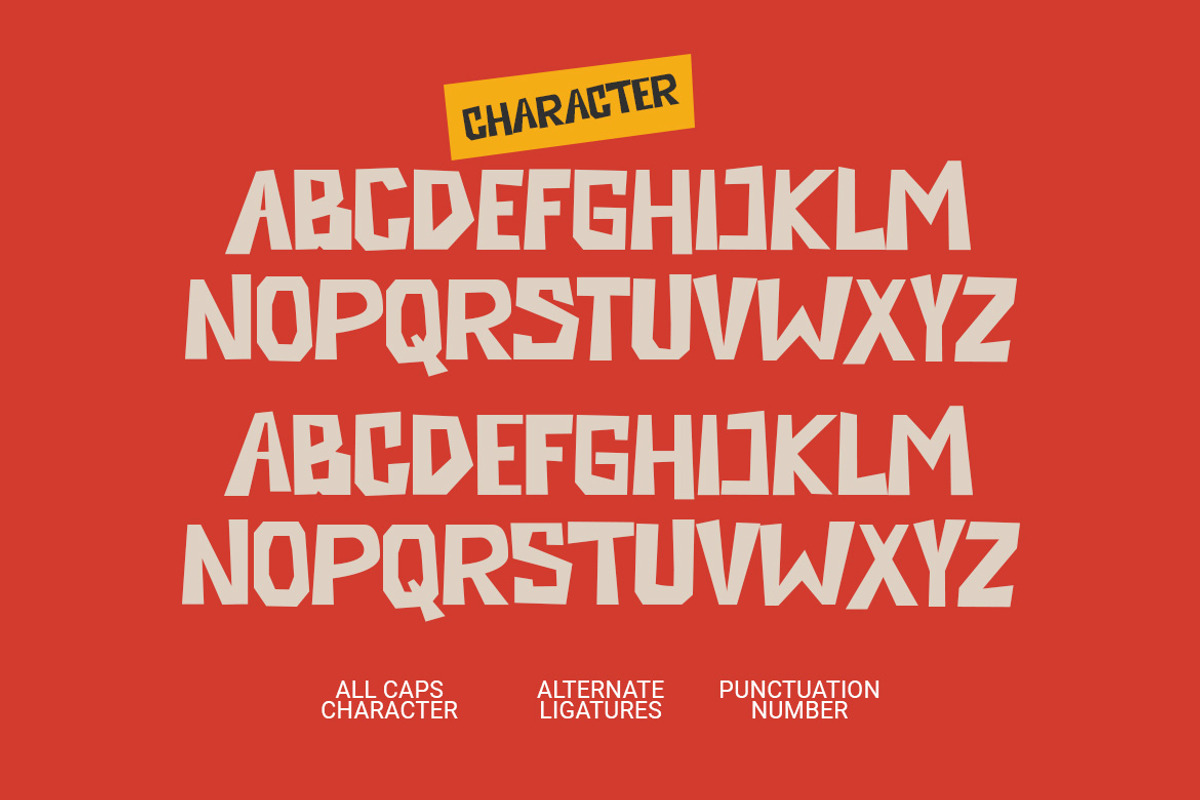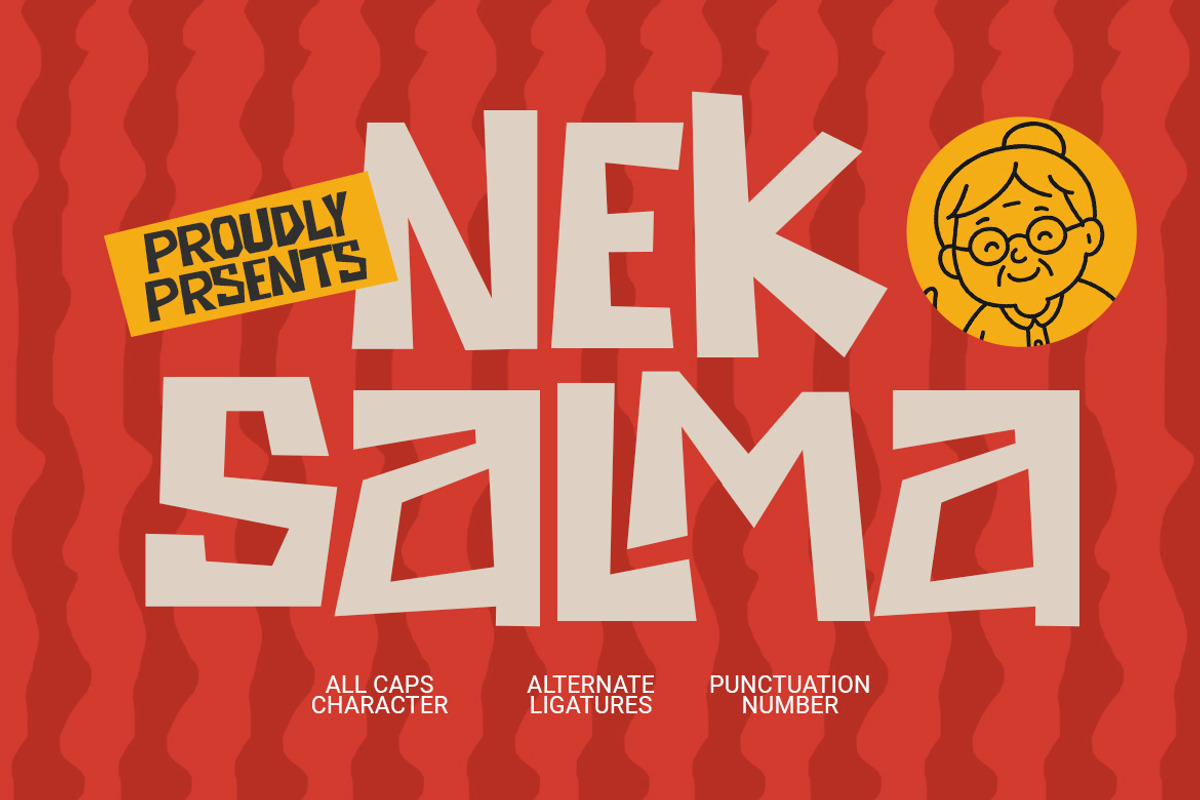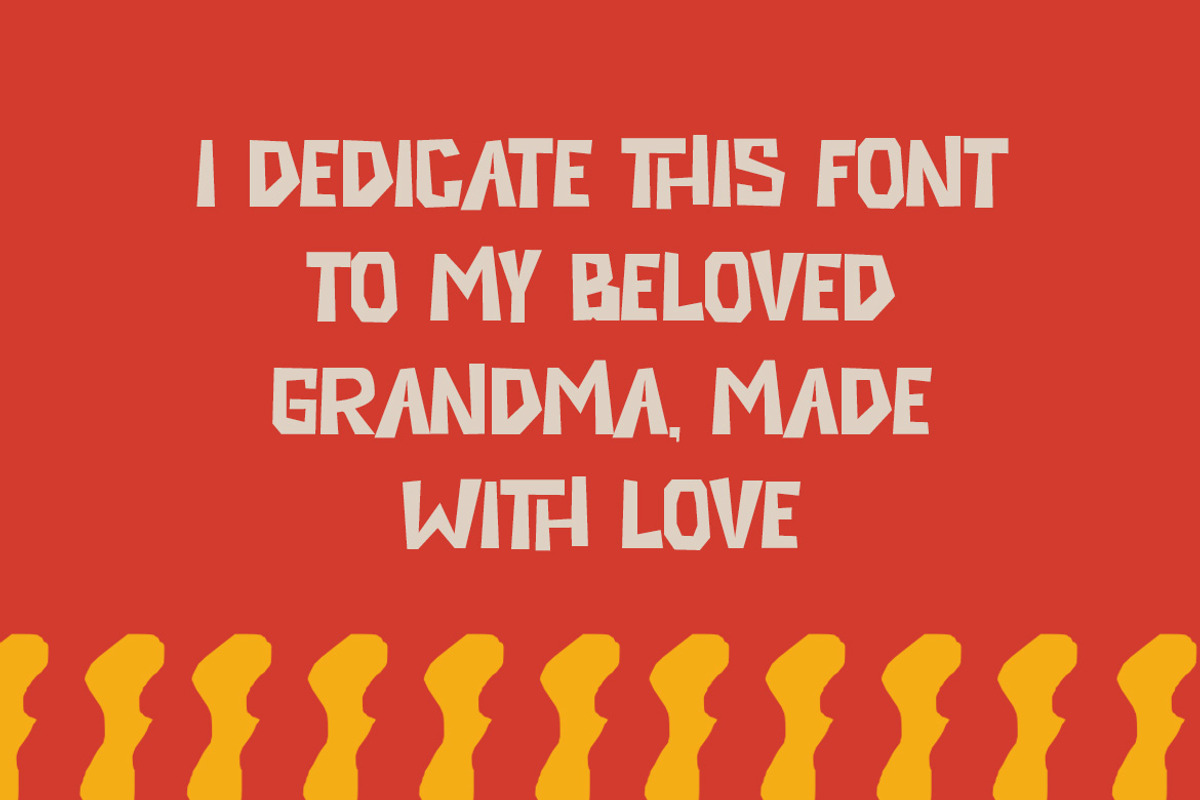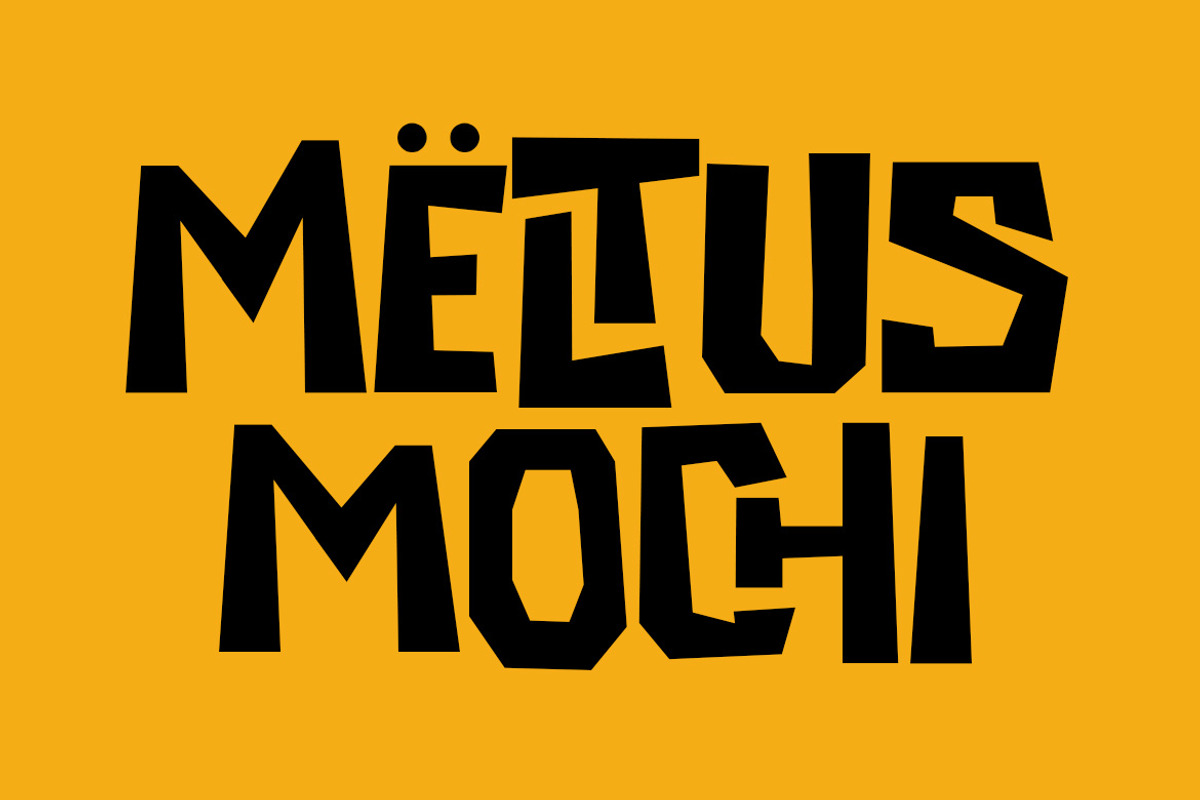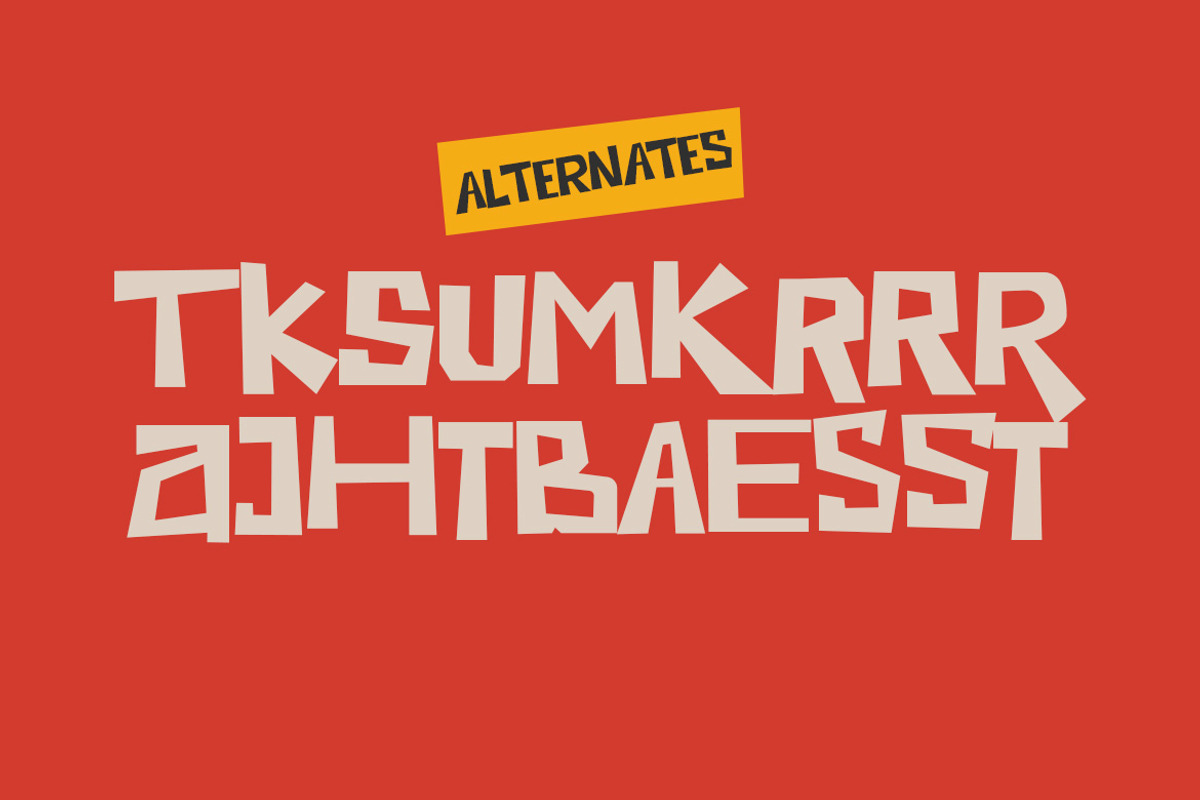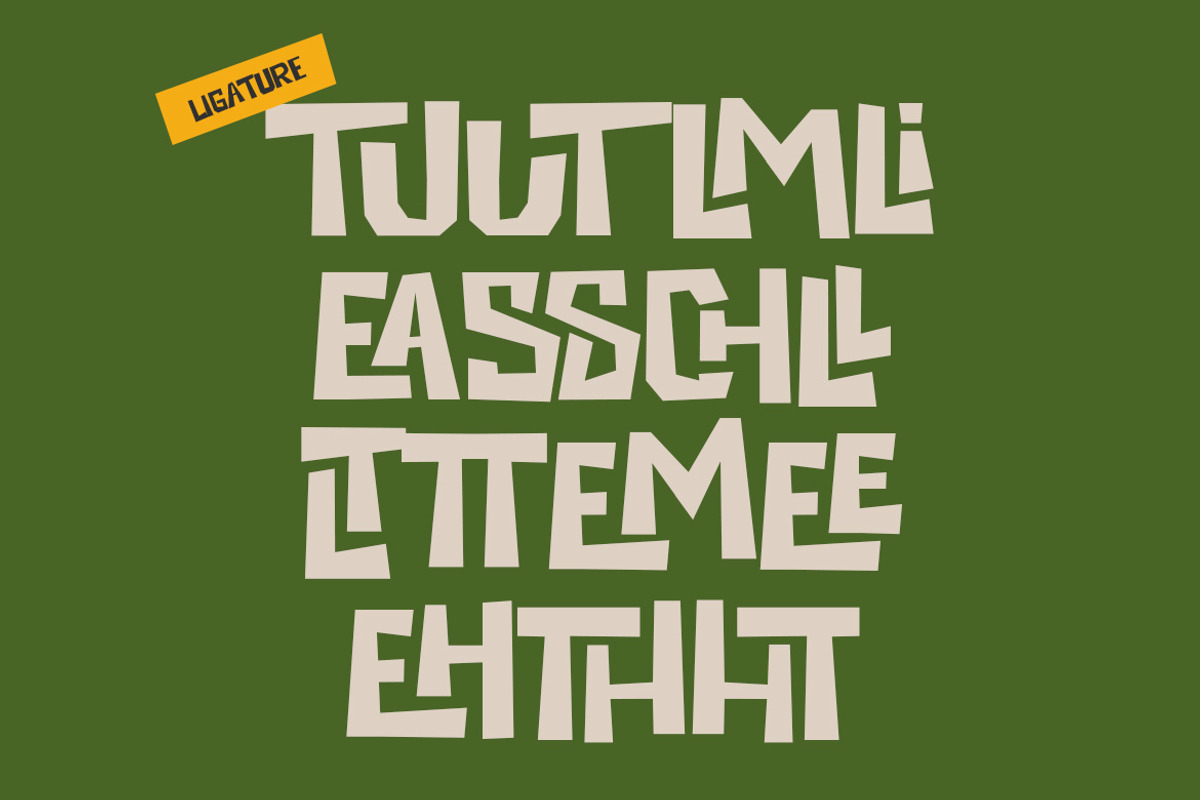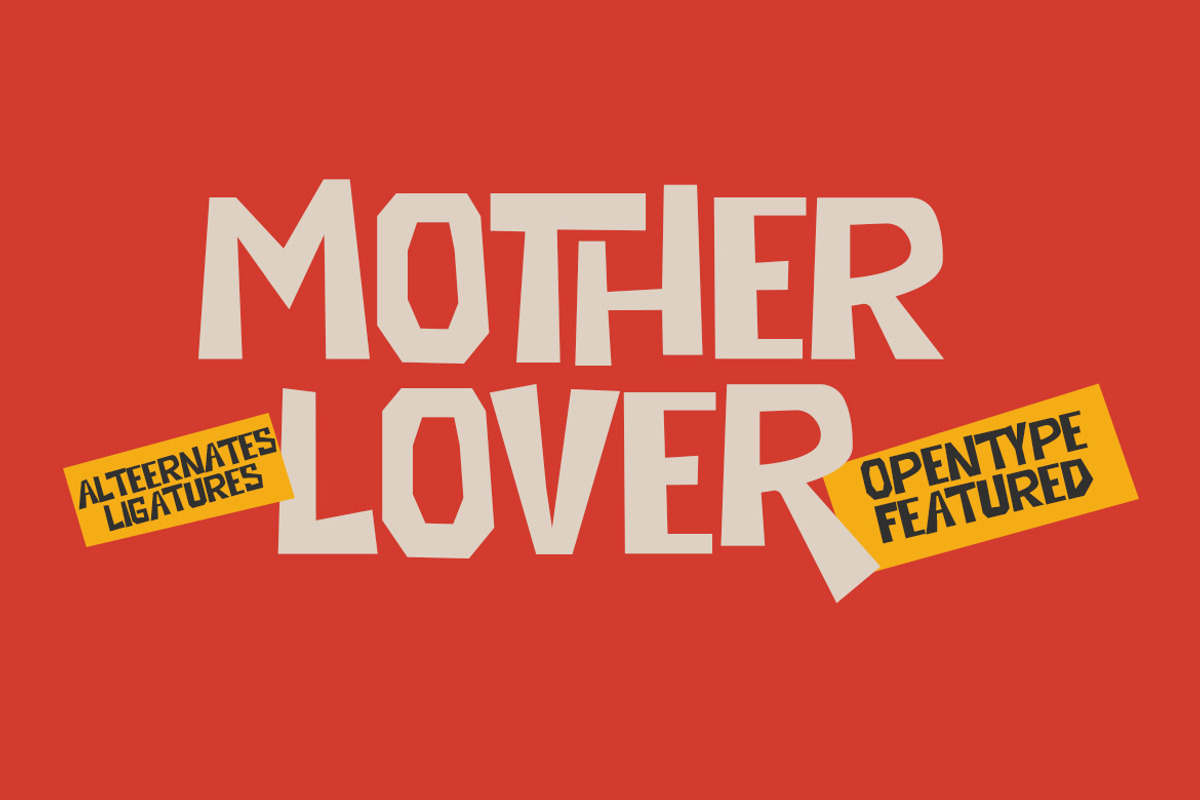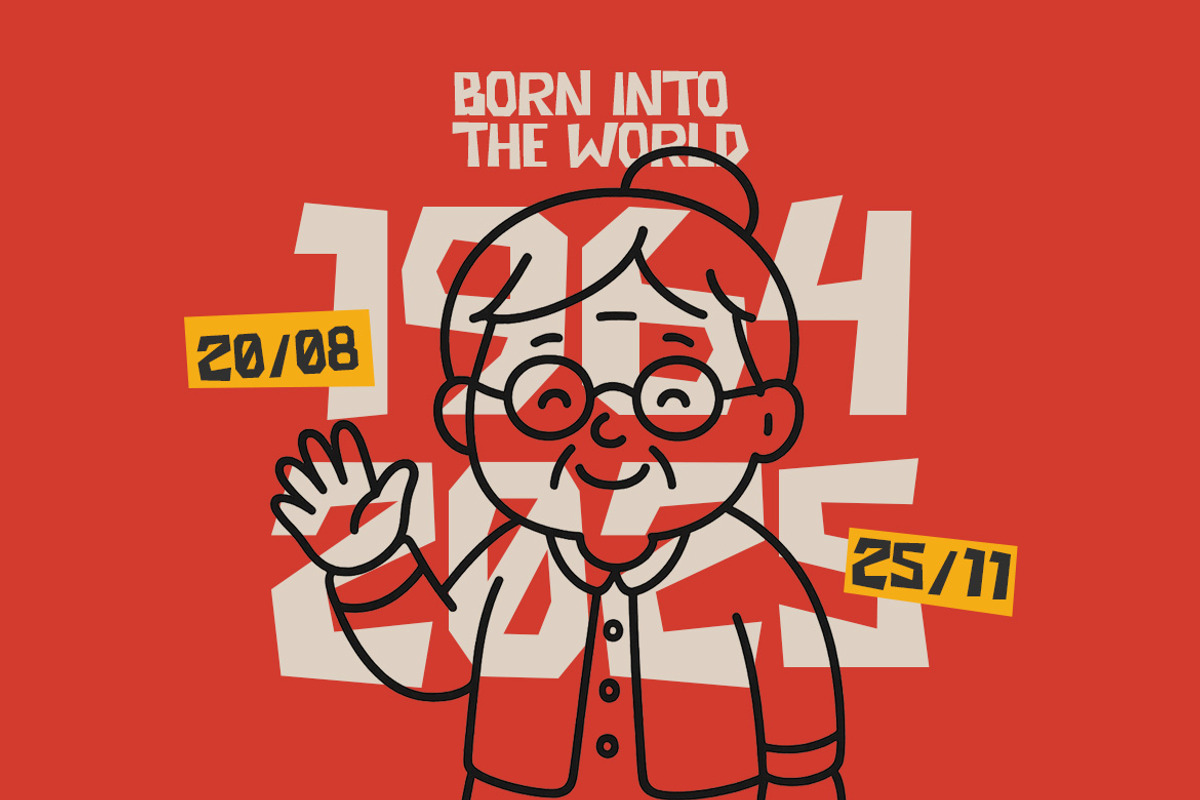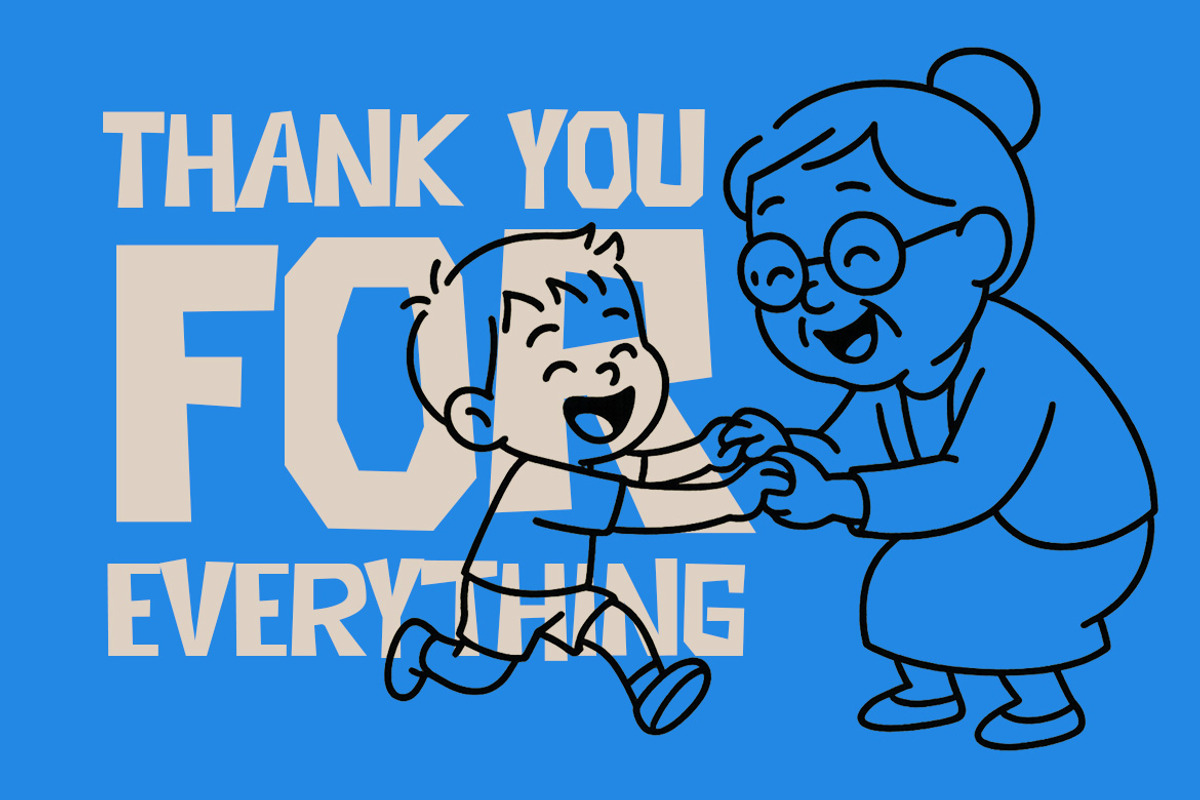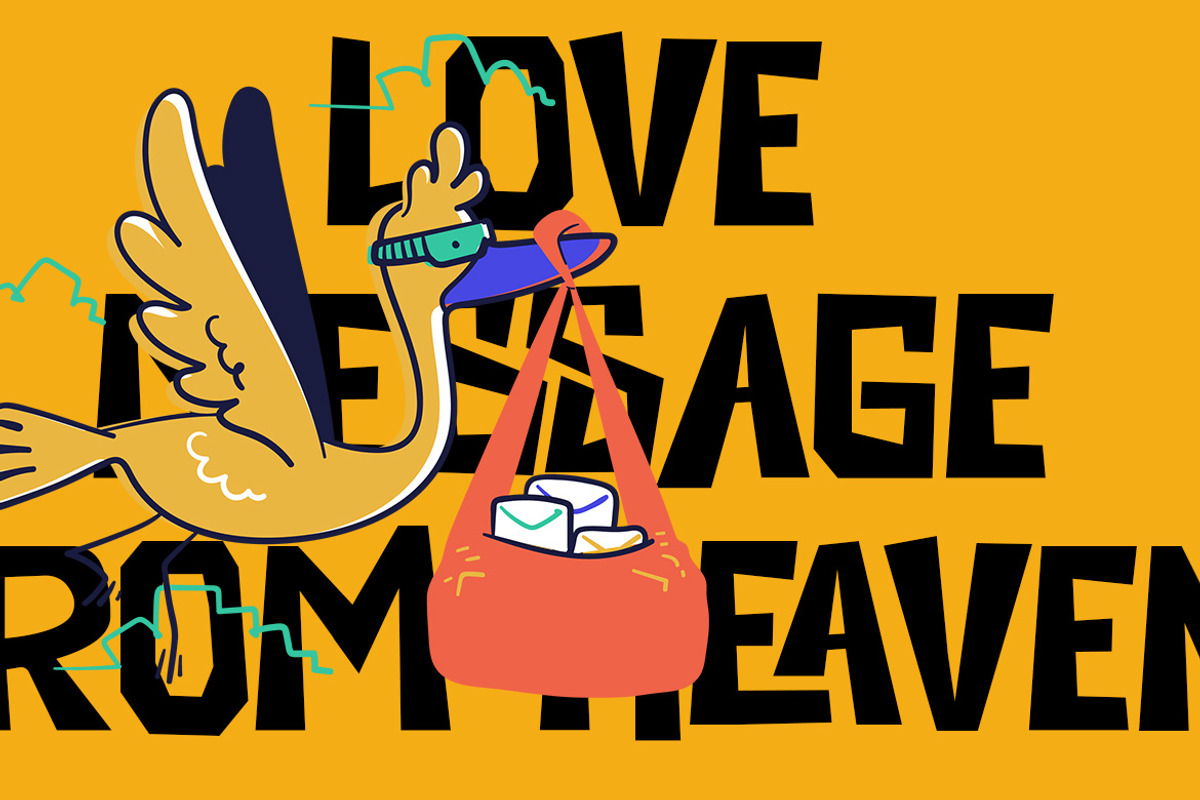
Nek Salma - Playful display font
Nek Salma is a playful and quirky display type inspired by cheerful retro cartoons. It features bold geometric shapes with humorous and friendly vibes — perfect for children’s books, packaging, comics, posters, and fun branding projects.
- Uppercase (ALLCAPS)